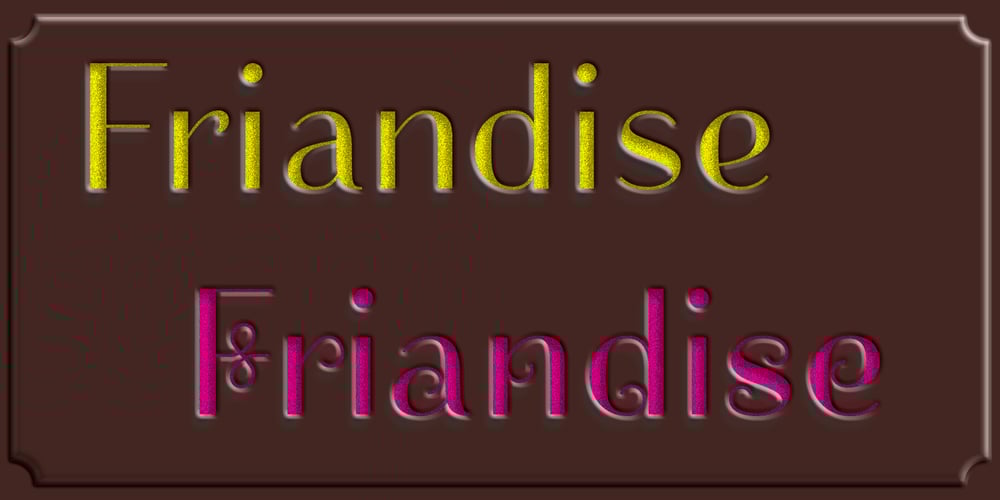
Friandise
Friandise font
Friandise Font Family was designed by Jean Boyault and published by JBFoundry. Friandise contains 2 styles and family package options. Do not believe that Friandise is reserved for the chocolate enthusiasts. It’s a pair of fonts which will allow you to ally simplicity and frivolity, sweetness and hardness, discretion and show.